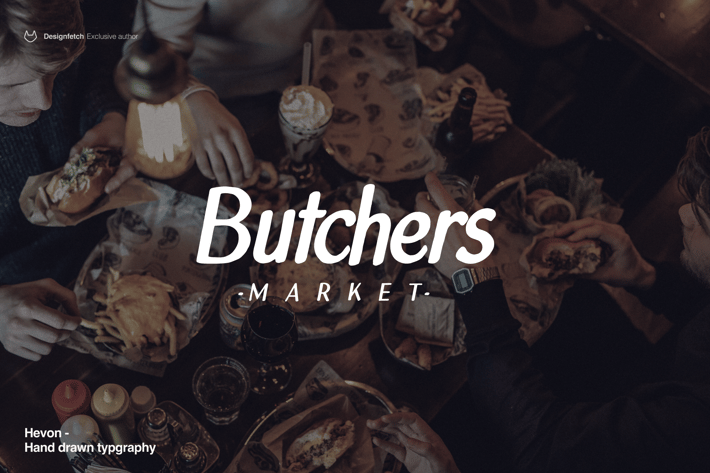
Hevon -- Hand drawn typeface
Introducing Hevon, the perfect font for your next big project. Hevon is a handwritten typeface that gives your text a natural, personal touch. With its minimalist English characters, this font is perfect for posters, big titles, and more.
With its casual, handwritten look, Hevon is the perfect font for creating memorable, engaging print materials and posters.